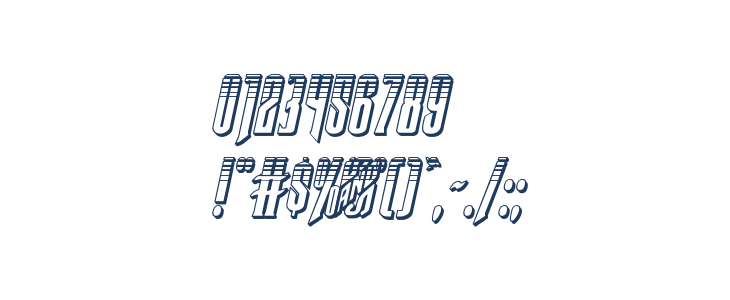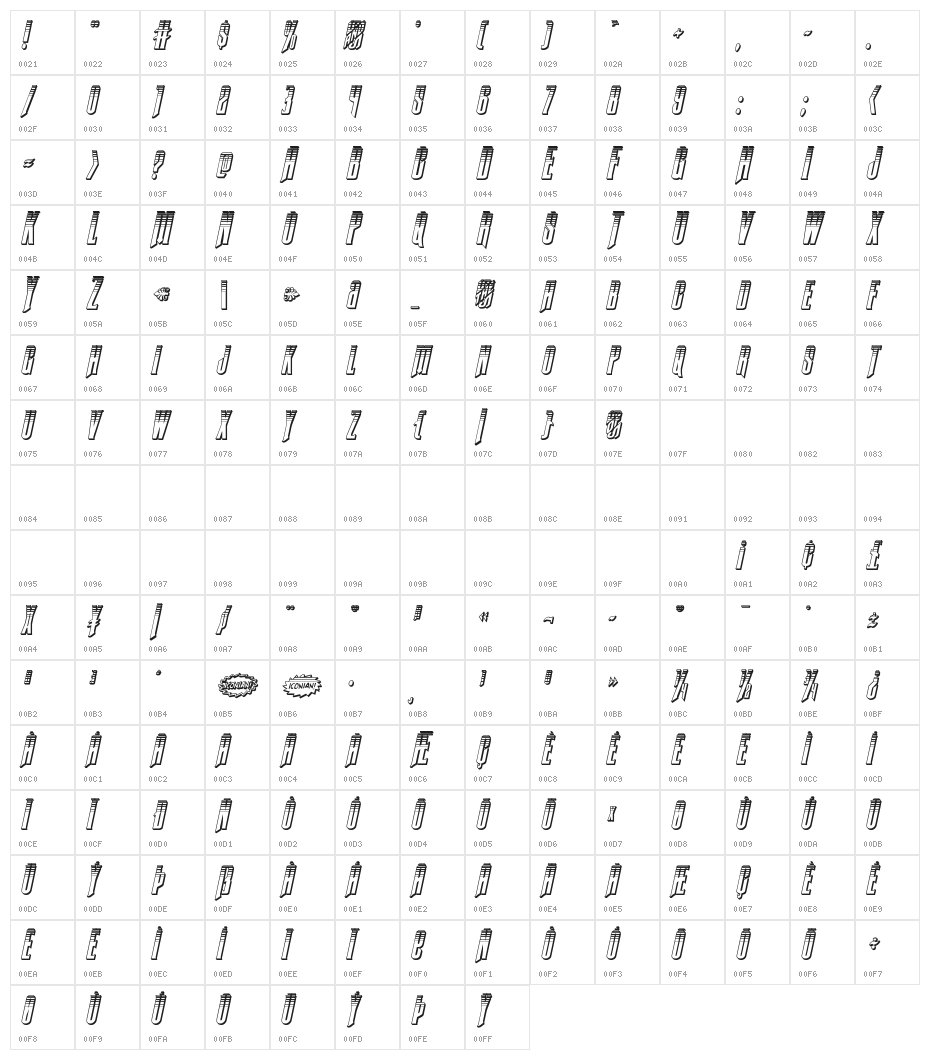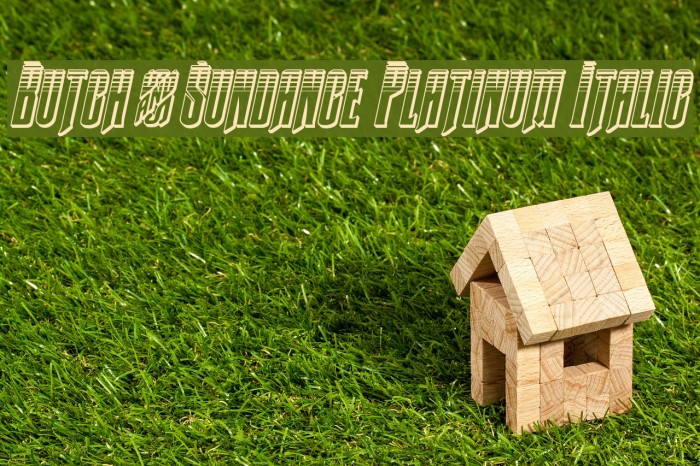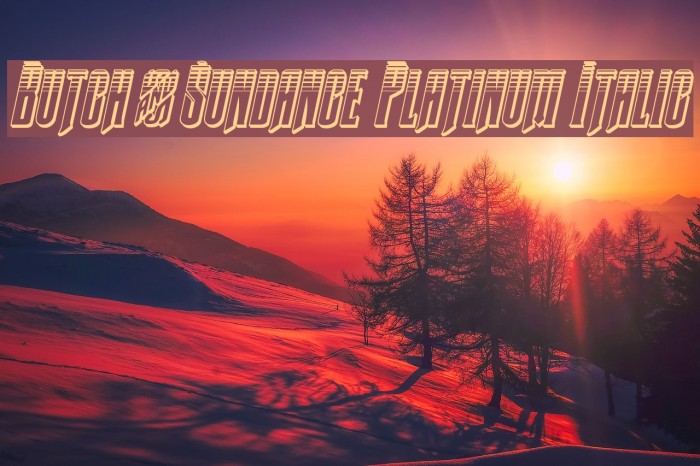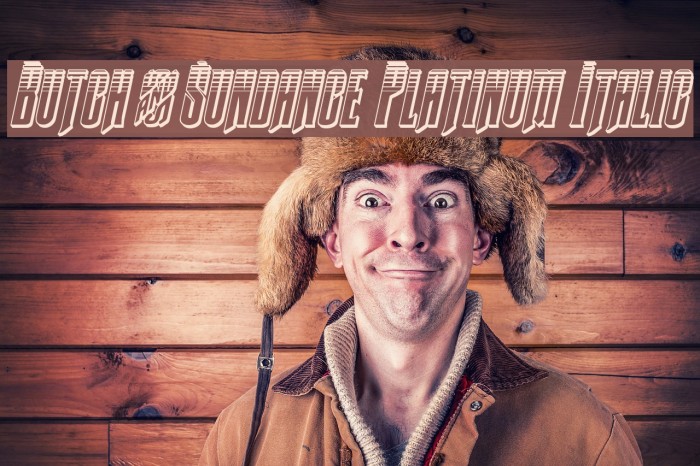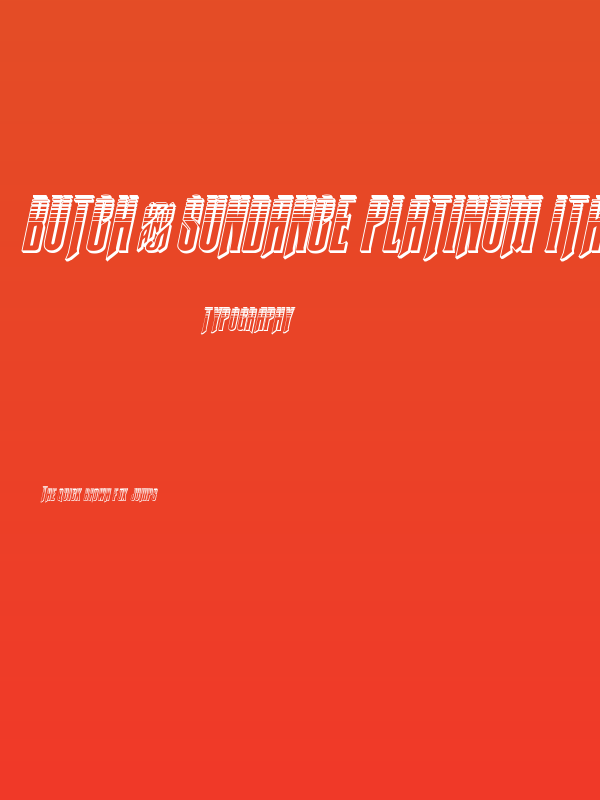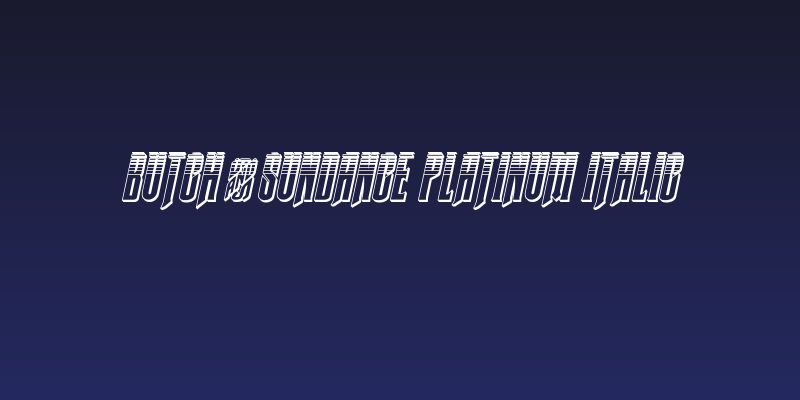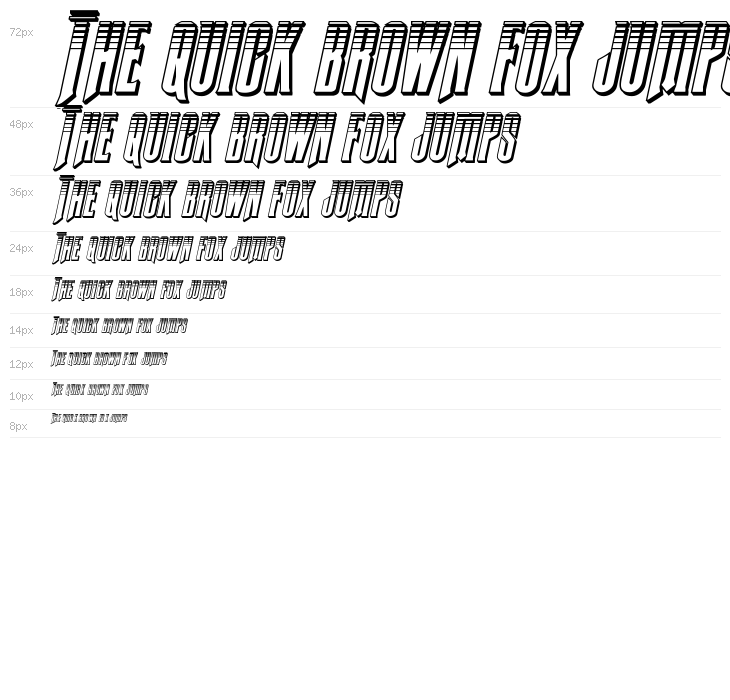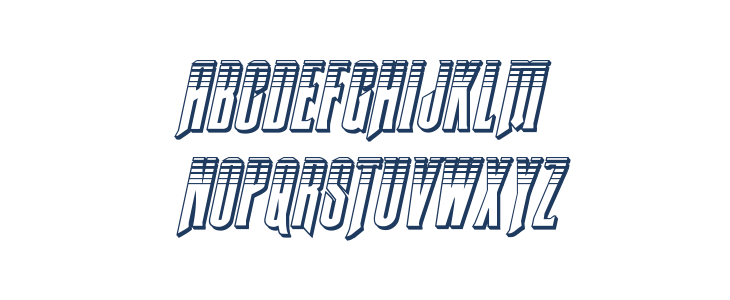
Butch & Sundance Platinum Italic Font
Butch & Sundance Platinum Italic Description
This font features a bold and dynamic style with a strong italic slant, giving it a sense of movement and energy. The characters are outlined with a thick black shadow, enhancing their three-dimensional appearance. The uppercase letters are tall and narrow, while the lowercase letters maintain a consistent height, creating a cohesive look. The numerals and special characters follow the same stylistic approach, ensuring uniformity across all glyphs. The font's design is reminiscent of vintage poster typography, making it suitable for projects that require a bold, eye-catching display.
| Proposed Projects | Perfect for vintage-themed posters, dynamic headlines, and eye-catching logos. |